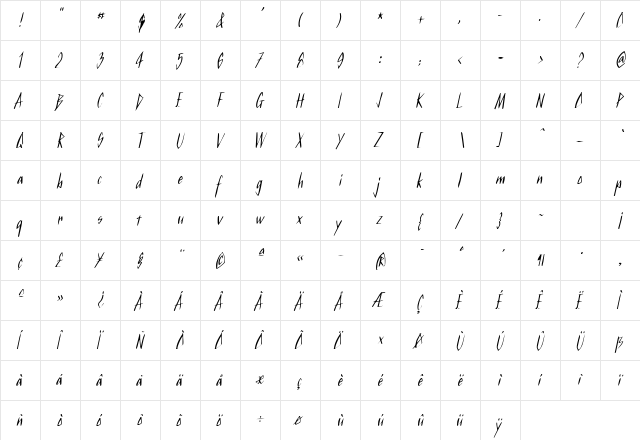
Kurtz Italic Font Preview
Kurtz Italic
Kurtz Italic Font Details
Design Context for Kurtz Typeface
Kurtz is a composed and adaptable typeface that performs quietly and consistently across a wide range of design contexts. The slanted form adds forward momentum and visual energy.